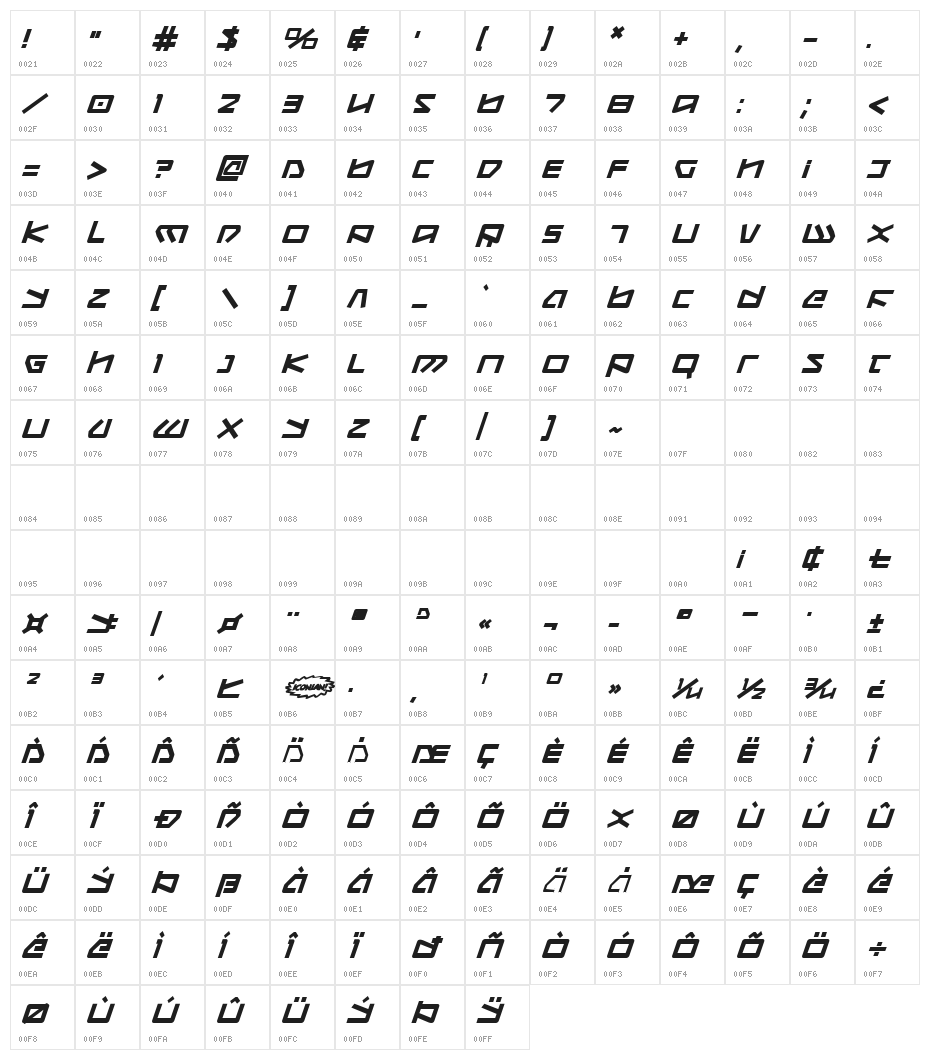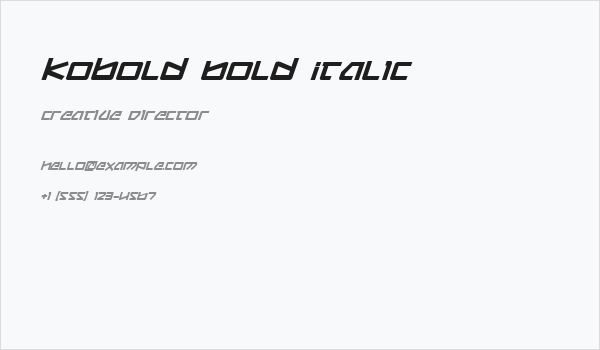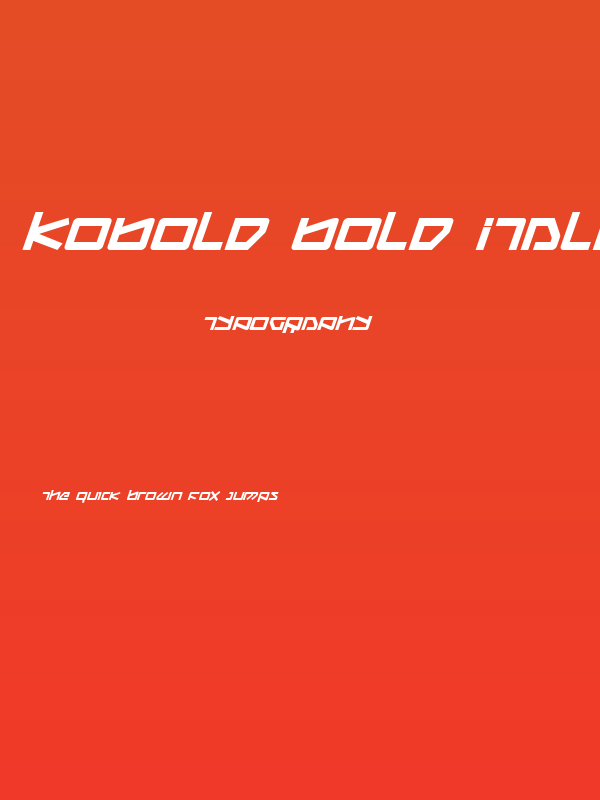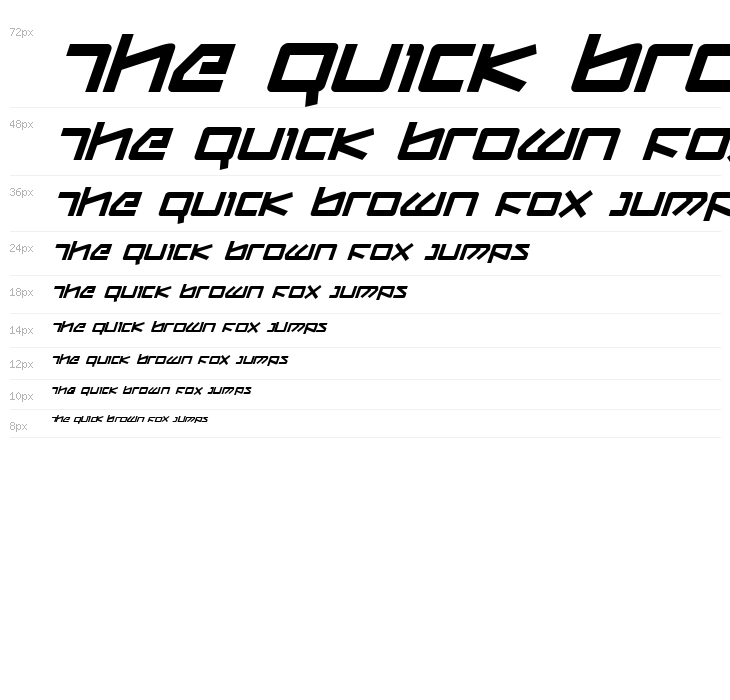
Kobold Bold Italic Font
Kobold Bold Italic Description
This font features a bold and italicized style with a futuristic and angular design. The characters are sharply defined with a consistent slant, giving it a dynamic and energetic appearance. The uppercase and lowercase letters maintain a cohesive look, with unique geometric shapes that add a modern edge. Numbers and special characters follow the same stylistic approach, ensuring uniformity across all glyphs. The font's distinctiveness makes it suitable for projects that require a strong visual impact.
| Proposed Projects | Ideal for sci-fi themed designs, video game titles, tech branding, and dynamic posters. |